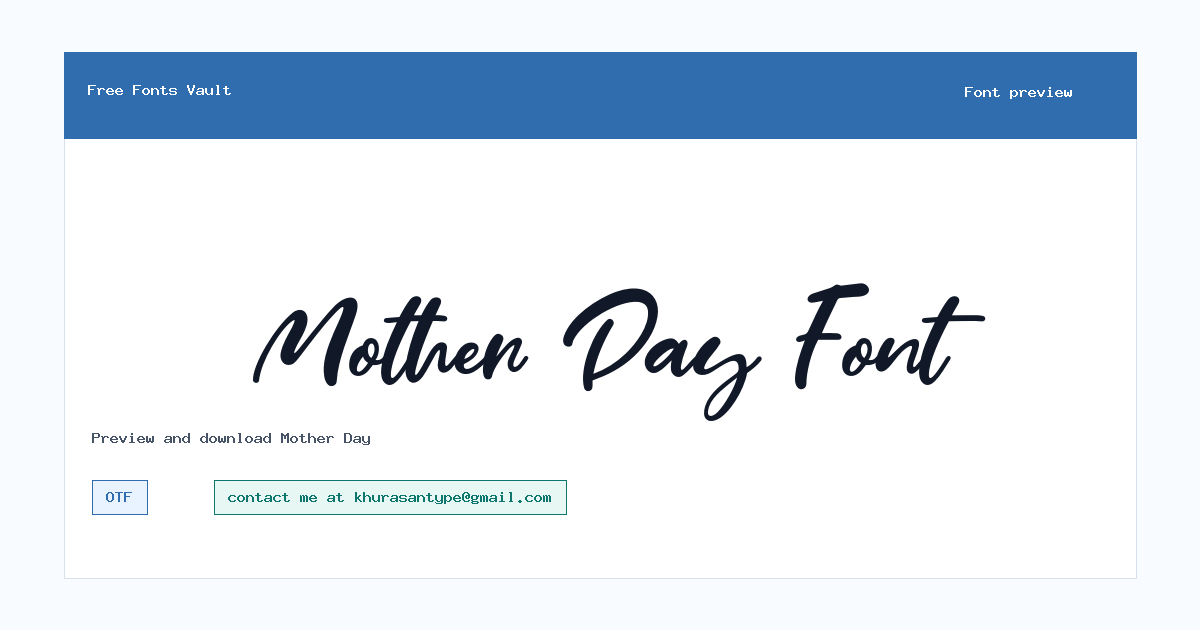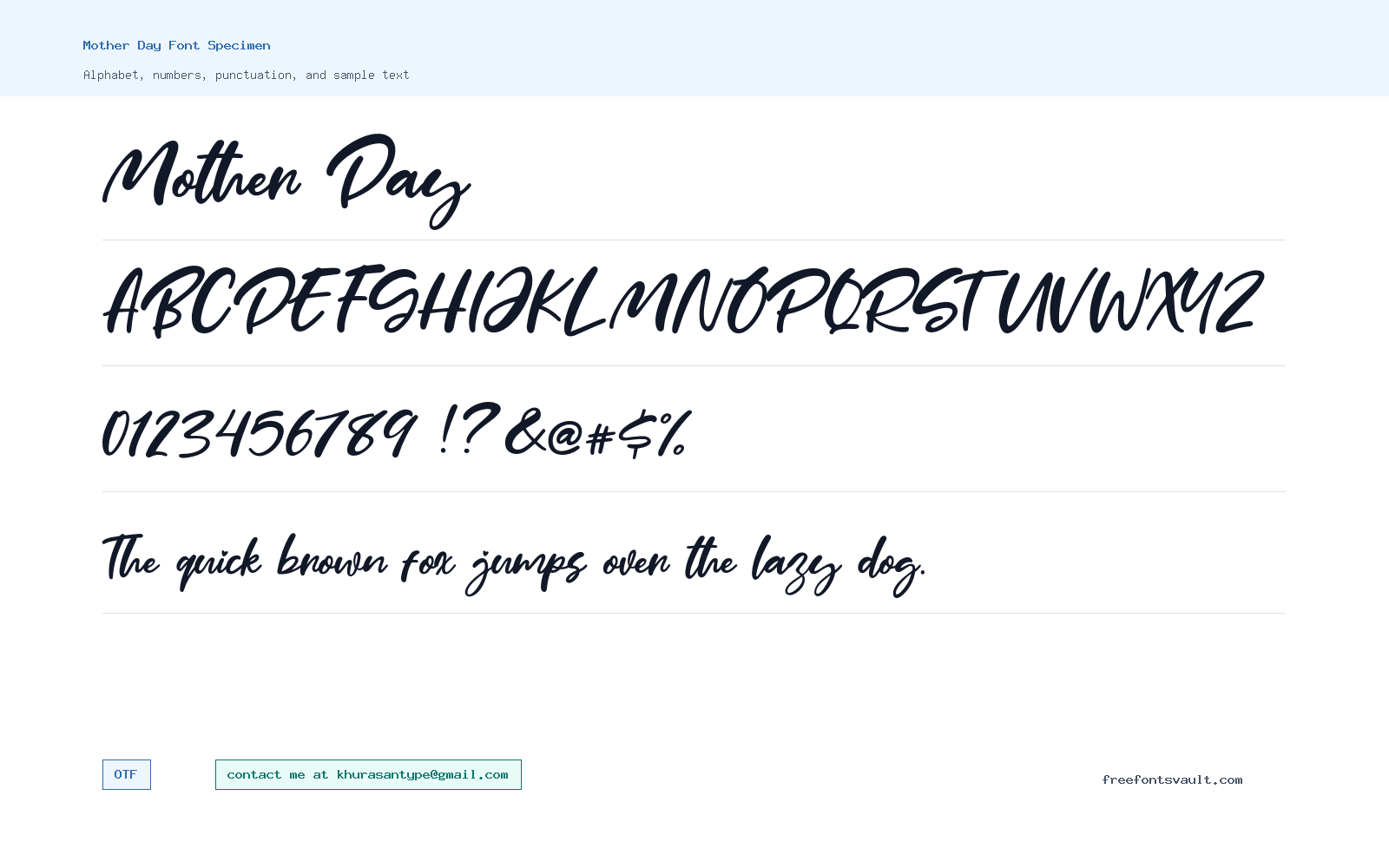
Mother Day
- Designer Khurasan
- Foundry Khurasan
Mother Day font.
Mother Day is a warm display font from Khurasan, packaged as a single OTF file for quick previewing, testing, and personal design mockups.
About Mother Day Font
Mother Day works best when the message is short and emotional. The name naturally fits greeting cards, family quotes, invitation lines, social posts, and seasonal artwork where the typography should feel softer than a plain system font. Use the live preview with your real wording, because decorative fonts often change character once names, dates, numbers, and punctuation are added.
The font is marked as a regular, normal-style OTF with 400 weight metadata, so the download is centered on one main style rather than a multi-weight family. That makes it easy to test, but it also means layout choices matter. Instead of forcing fake bold or italic styles, let Mother Day handle the featured phrase and pair it with a clean companion font for addresses, paragraphs, captions, and smaller notes.
For best results, test the font on the same background and color palette you plan to use. A card title may look lovely at a large size but feel crowded on a narrow phone graphic. Try two or three line breaks, compare uppercase and lowercase words, and check apostrophes, ampersands, and numerals if your design includes dates or names.
- Friendly display personality for short seasonal wording
- Useful for testing names, dates, quotes, and greeting-card titles
- Works best as a feature font rather than a paragraph font
- Mother’s Day cards and family-themed graphics
- Invitations, short quotes, stickers, and gift tags
- Social media greetings and seasonal sale artwork
- Names, dates, headings, and decorative title lines
- Personal craft mockups and printable preview designs
- Brand moodboards where a gentle display face is being tested
Use Mother Day for the main phrase, then balance it with a simpler font for supporting copy. Preview the exact text, check spacing between the most important letters, and export a test image before sending a card, invitation, or product mockup to print.
What kind of designs fit Mother Day?
It is best for short, warm display text such as cards, invitations, gift tags, family quotes, social greetings, and seasonal headings.
Should I use Mother Day for paragraphs?
Use it mainly for titles and short phrases. For long reading, pair it with a plain serif or sans-serif so the design stays comfortable.